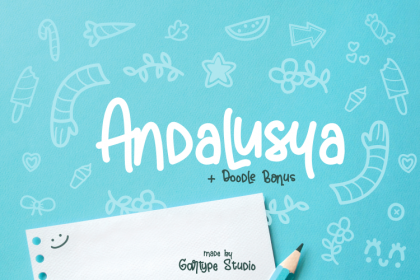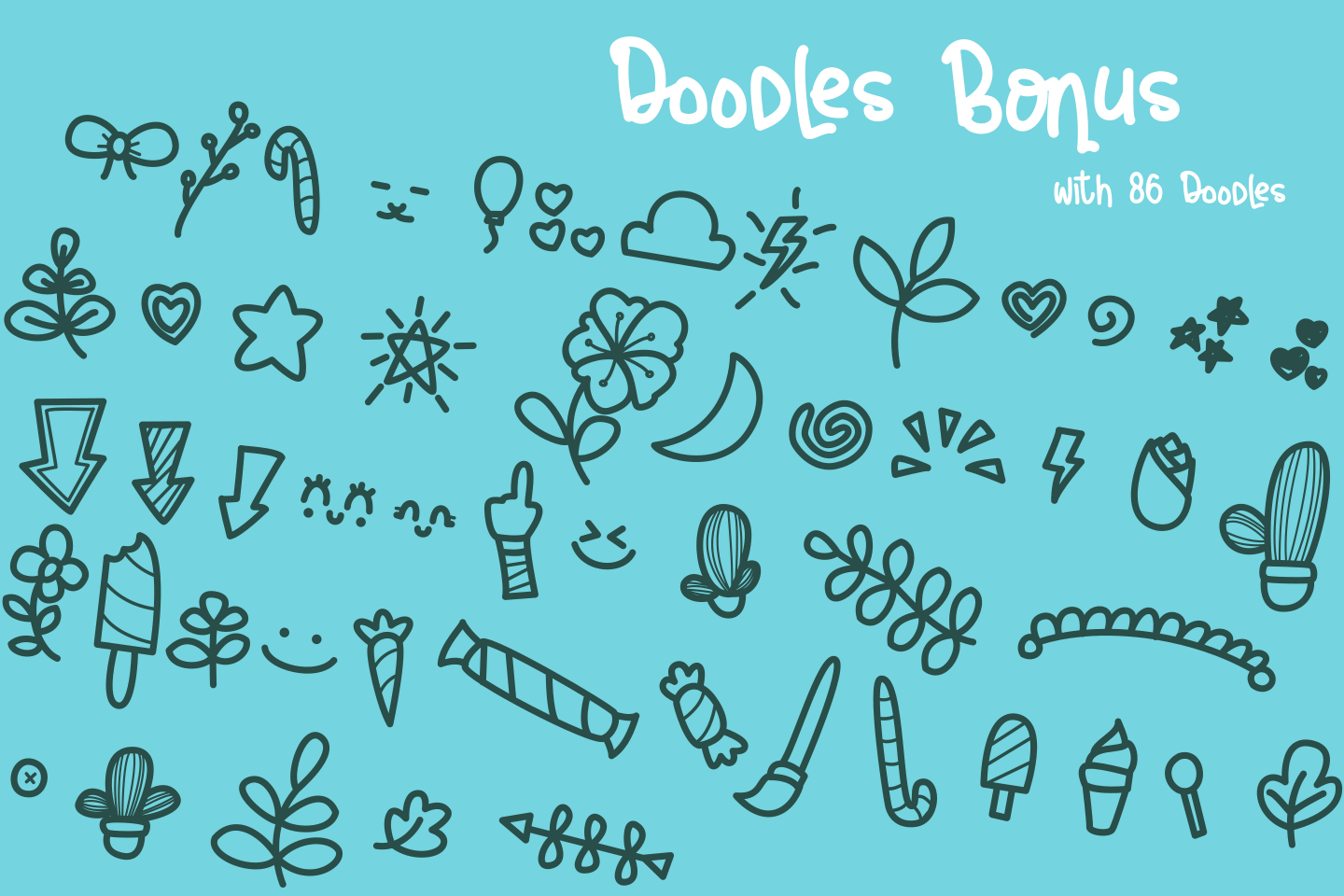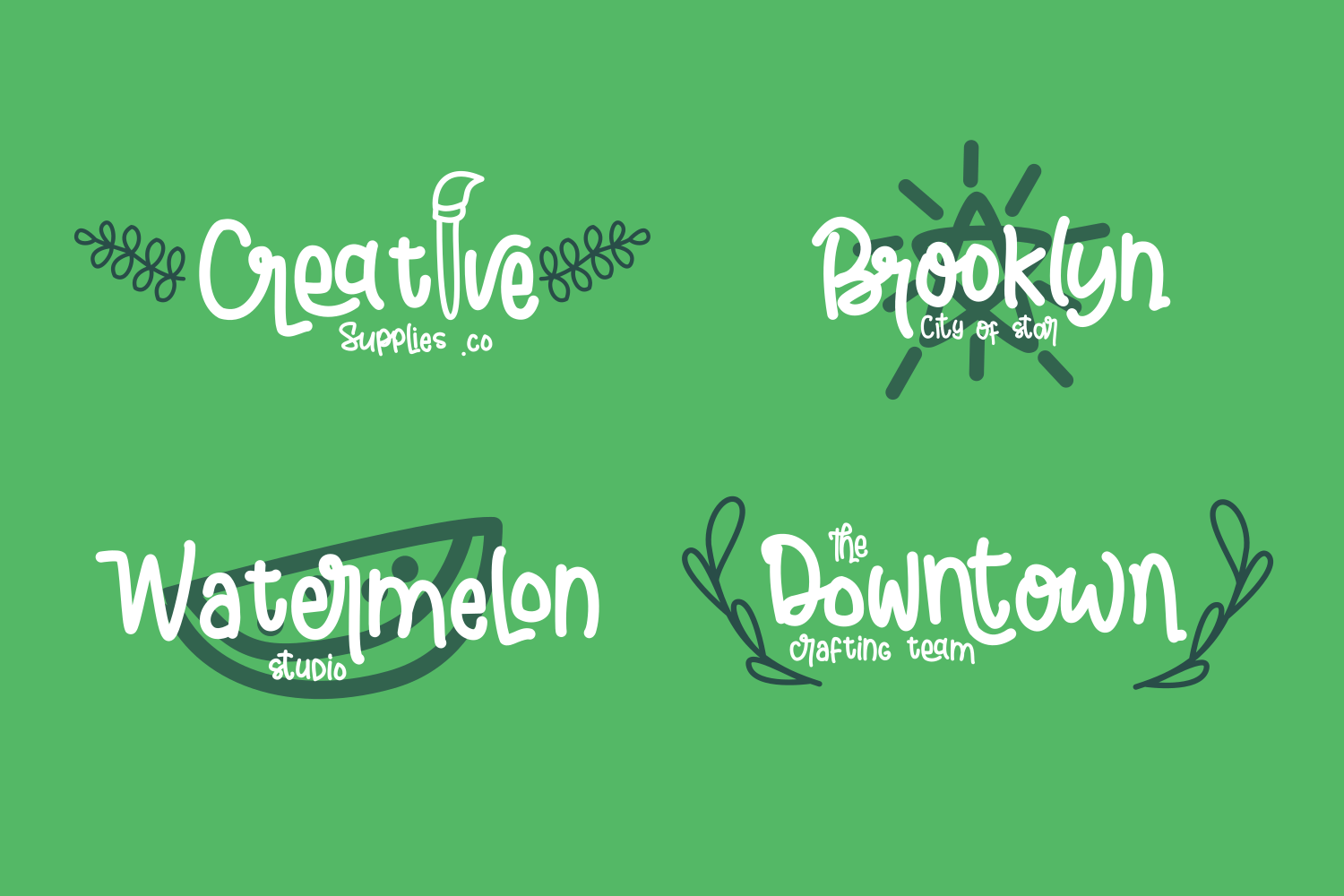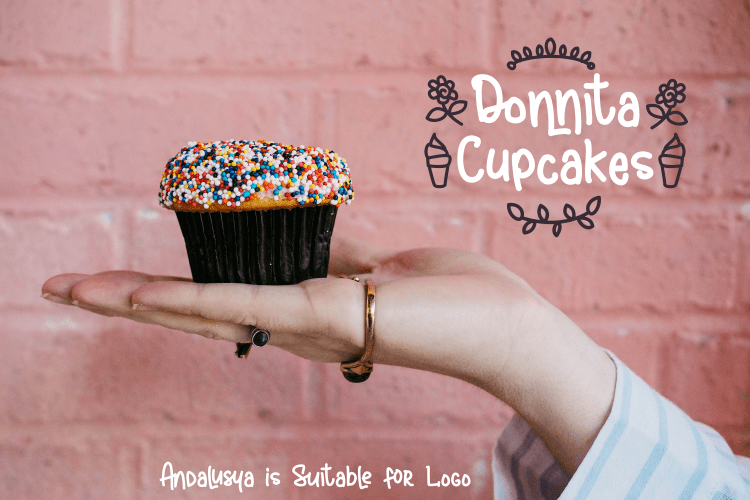
Andalusya Script Font
This is one of the cutest of us, Andalusya cute and fun font that is suitable for your needs such as, quote, logo, branding, title, signature and others. Not only that, we also give bonuses cute doodles that will beautify your needs.